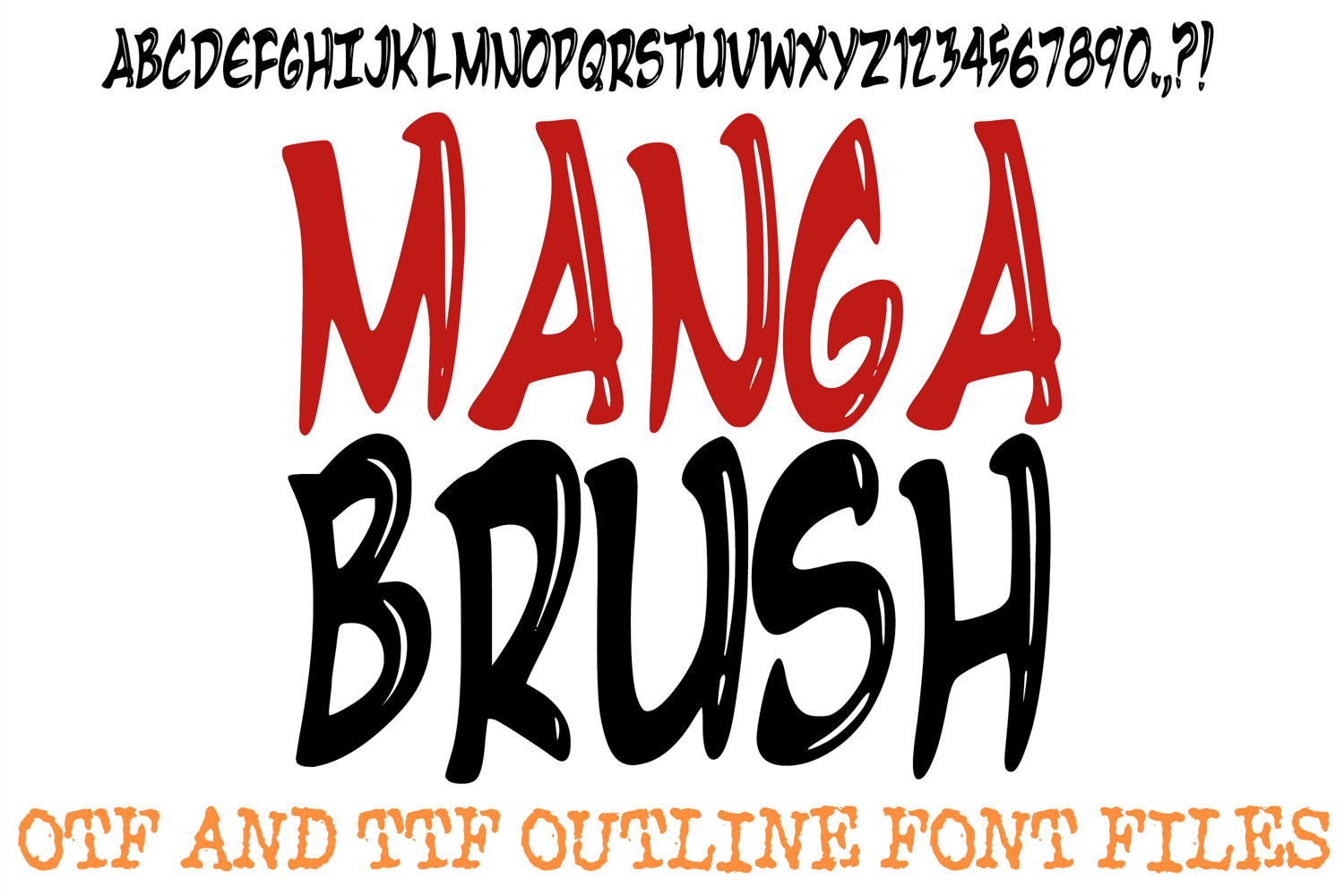
The Manga Brush Font is a dynamic, high-energy display typeface that perfectly captures the bold action and expressive artistry of Japanese comic illustration. Featuring smooth, confident brush strokes balanced by sharp, intentional flick details and subtle built-in light reflections, this typeface brings an authentic, hand-painted momentum to any creative layout. It is a premier choice for designers working on anime convention flyers, gaming stream overlays, graphic novel title cards, and alternative streetwear apparel.
The design replicates the natural weight variations of a loaded ink brush, shifting effortlessly from thick, impactful downstrokes to crisp, tapered points. Its lively, hand-drawn character orientation breaks away from rigid grids, infusing your typography with an undeniable cinematic movement. Whether you are building a bold header for a manga-inspired merchandise line or designing eye-catching logos for an esports channel, this font delivers a standout alternative aesthetic.
Expressive Comic Brushwork: Beautifully emulates the classic ink-and-brush styling used by comic artists, adding instant narrative energy to titles and slogans.
Integrated Sheen Highlights: Subtle internal negative-space accent paths give the letterforms a sleek, polished look that catches the eye.
Massive Display Impact: The thick, high-contrast silhouette ensures maximum readability and presence across both print posters and digital screens.
Action-Oriented Rhythm: The organic, sweeping curves and sharp terminals provide a sense of velocity, making it excellent for fast-paced, modern themes.